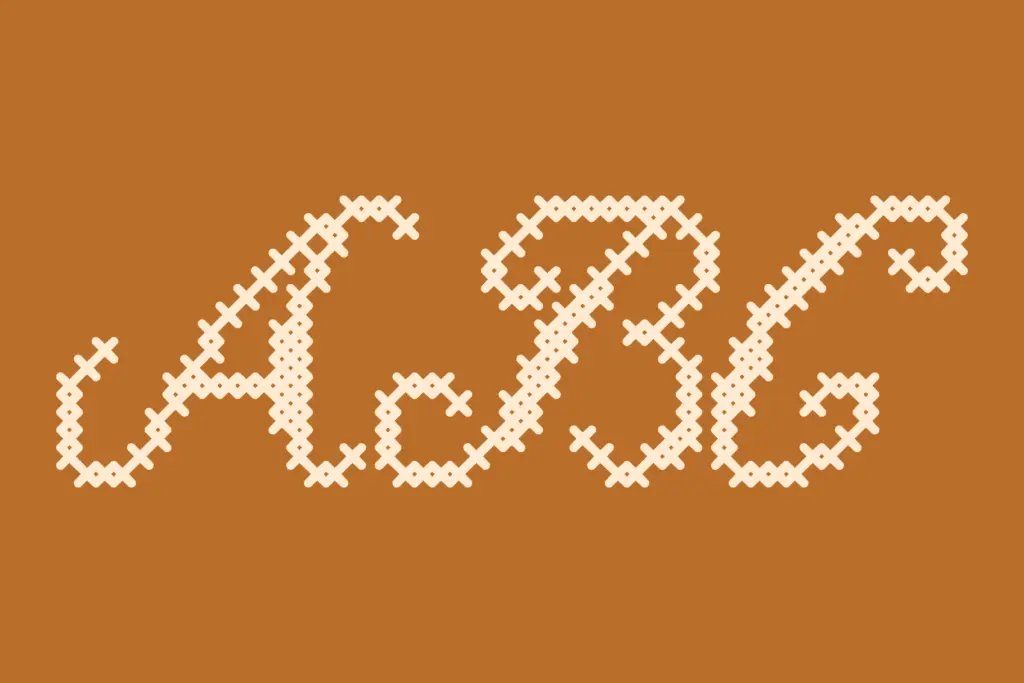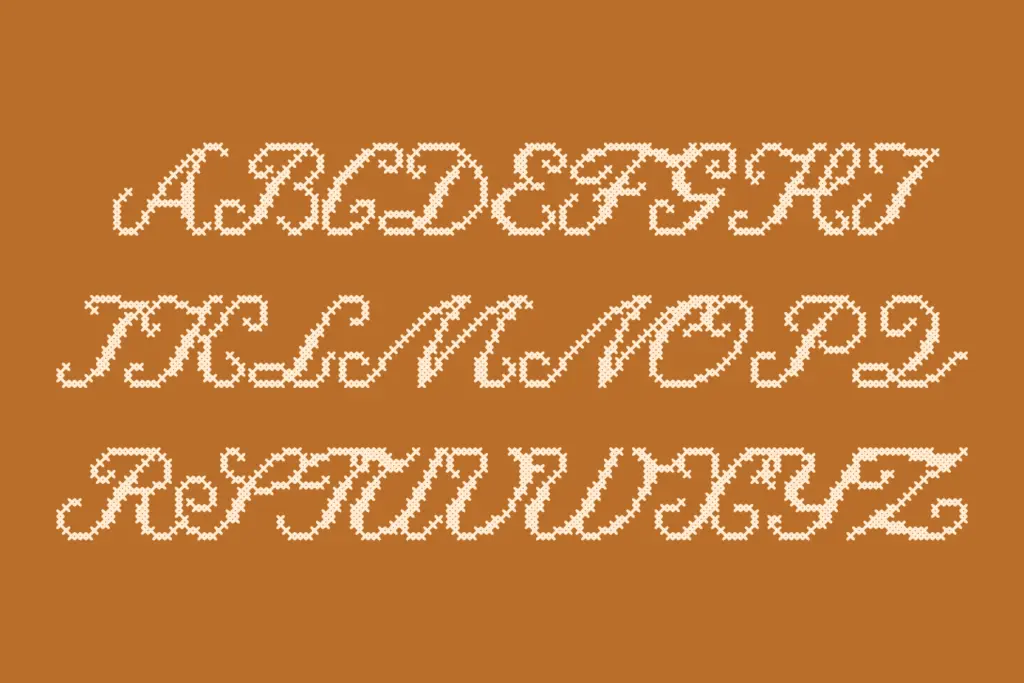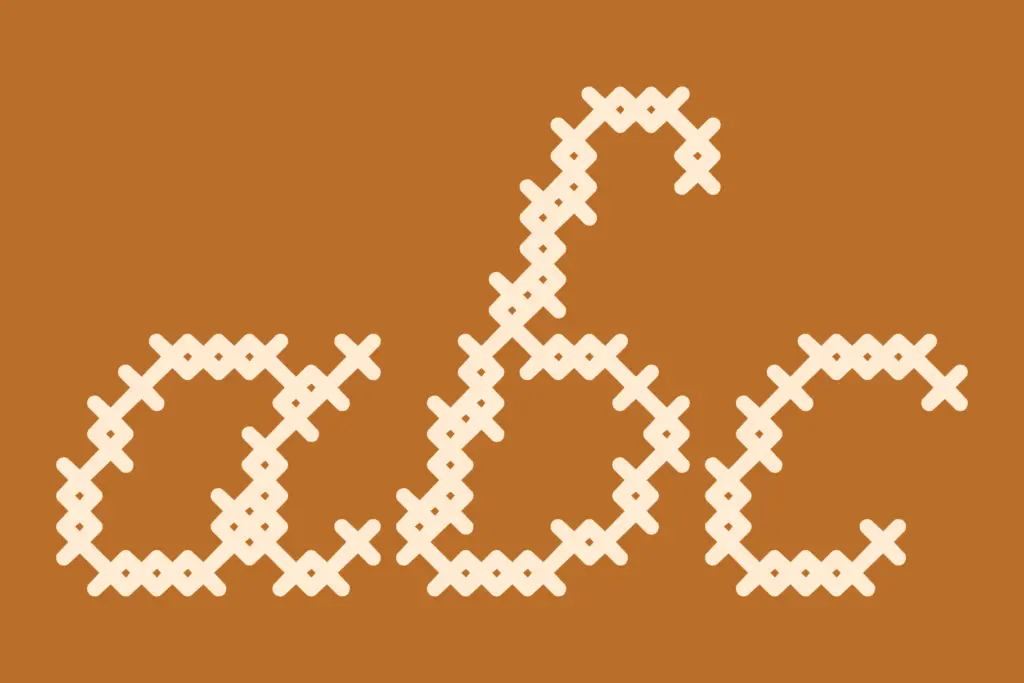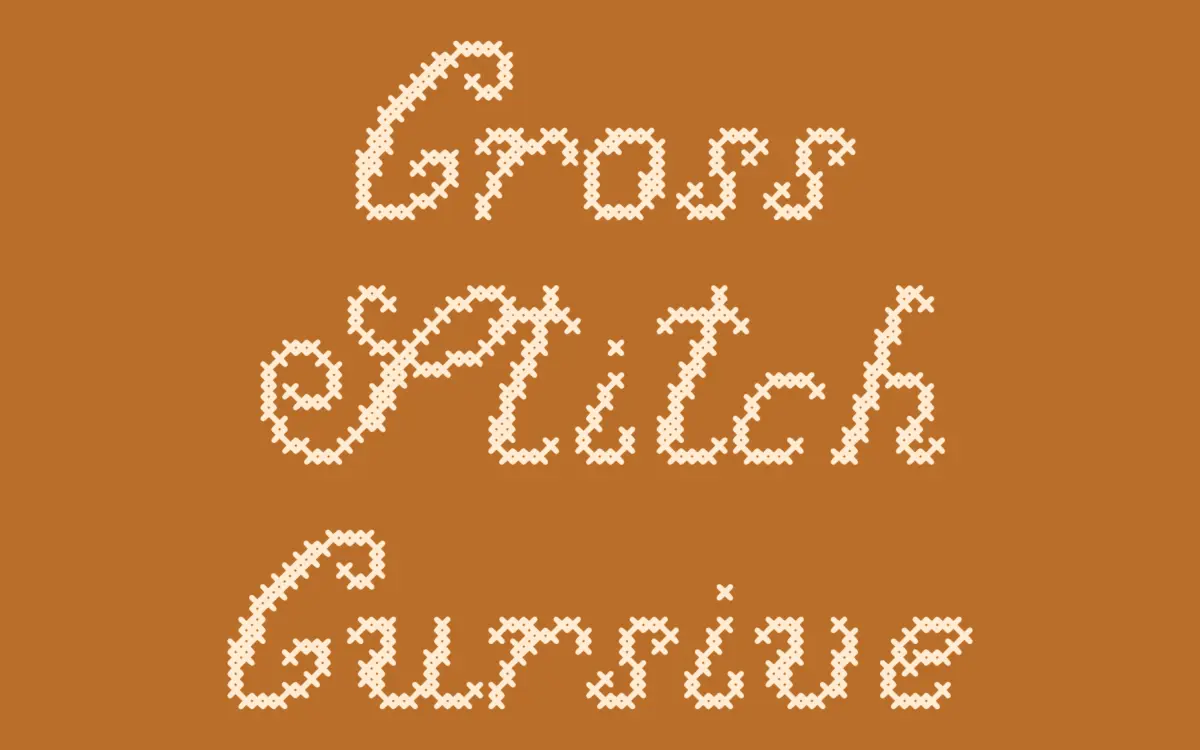
Cross Stitch Cursive does exactly one thing: it makes ordinary type look like it was sewn onto fabric with an X pattern. Each letter is built from a grid of stitch marks, upper case characters running sixteen stitches tall, and the joins between letters follow a cursive logic even though the underlying structure is pixel-like and rigid. It’s an odd but coherent combination — a script skeleton rendered in a technique that has nothing to do with pen strokes.
The effect works because the designer has committed to the constraint rather than fighting it. Curves are approximated in steps, the way they would be on an actual embroidery hoop, and the diagonals in letters like k, v and w show visible staircasing. That’s the point. If you’re expecting the fluidity of a normal script you’ll be disappointed; if you want something that reads as textile rather than typography, it delivers.
The set covers upper and lower case A–Z, small figures 0–9, an ampersand, exclamation and question marks, comma and period. That’s a workable range for short lines of text — names, dates, single words, short phrases — but there’s no extended punctuation, no accented characters mentioned, and nothing that suggests multilingual support. Anyone setting body copy or anything beyond a line or two of English-language text will run out of runway quickly.
Because the letterforms are built stitch-by-stitch, kerning and kerning pairs behave differently than in a conventional script. Letters need enough space to read as separate stitched units, so tight setting collapses the illusion into a smudge of X marks. At smaller sizes the stitching pattern loses definition and the whole thing reads as texture rather than legible text — this is a display font in the strictest sense, meant to be looked at, not read at length.
This is a novelty font built for a specific visual joke: type that looks handcrafted without anyone actually having to cross stitch it. It suits craft-adjacent packaging, home goods branding, seasonal cards, embroidery-themed posters and signage, and any project where a folksy, homemade sensibility is the goal. A single word or short phrase set large — a name on a nursery print, a
- Commits fully to the stitched-letter conceit rather than half-rendering it
- Works well at large display sizes for short words or phrases
- Suits craft, packaging and seasonal design work that wants a handmade feel
- Limited character set with no accented characters or extended punctuation mentioned
- Loses legibility fast at small sizes since the stitching pattern needs room to read
Cross Stitch Cursive nails a specific novelty effect — type that looks embroidered — and does it with more discipline than most gimmick fonts. But it's a one-trick font: limited character set, poor small-size legibility, and a narrow range of appropriate uses.